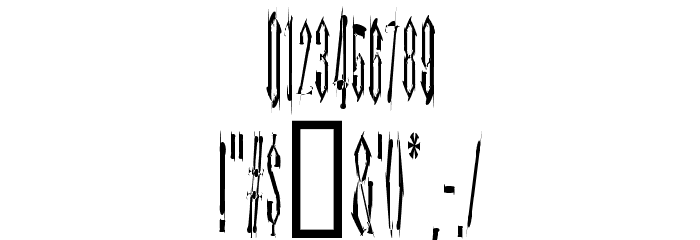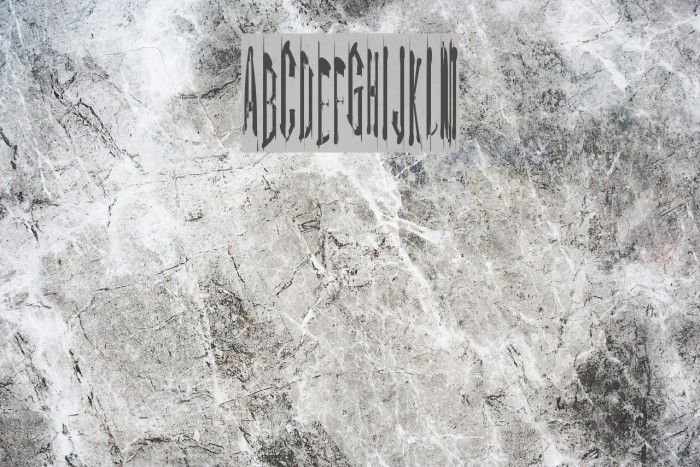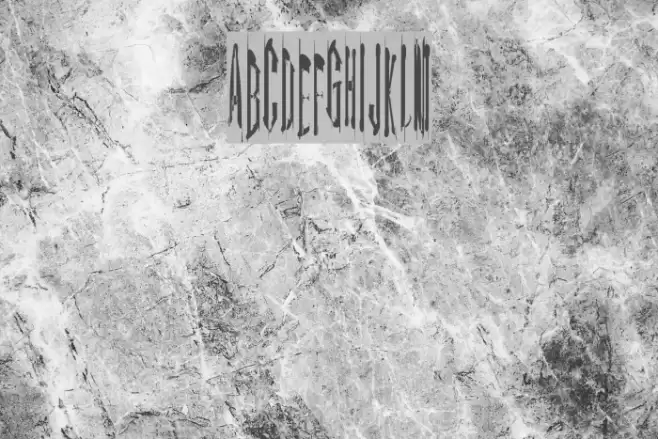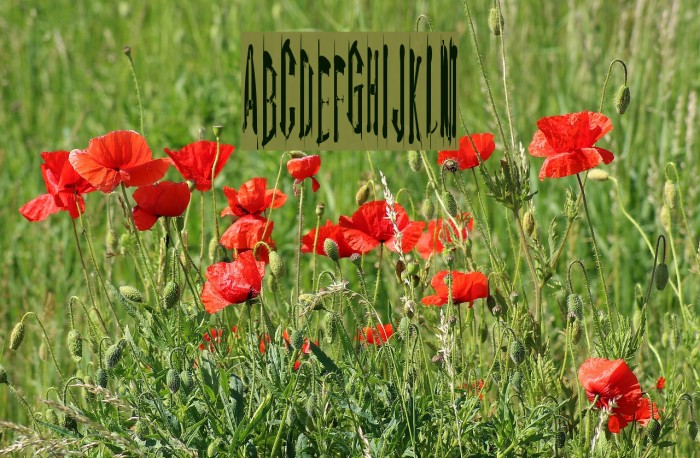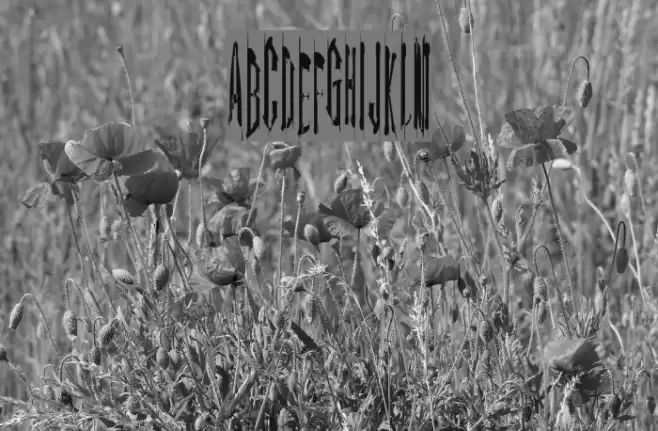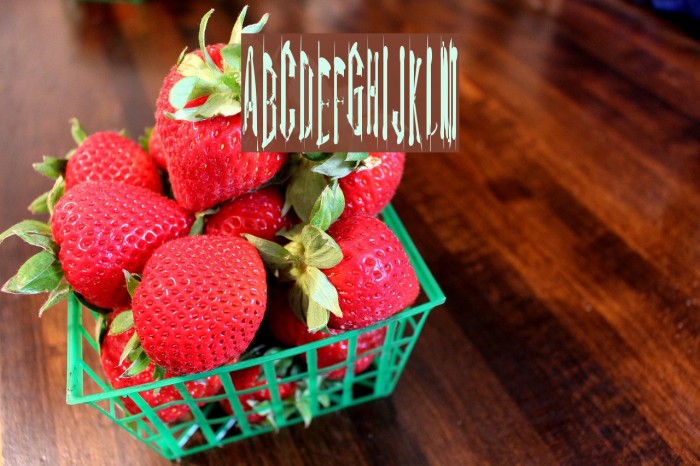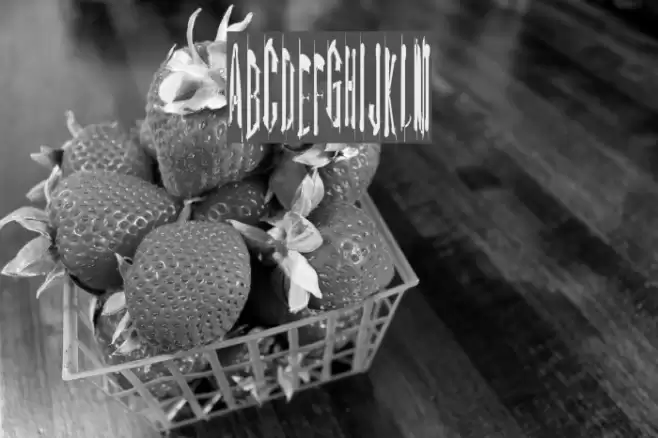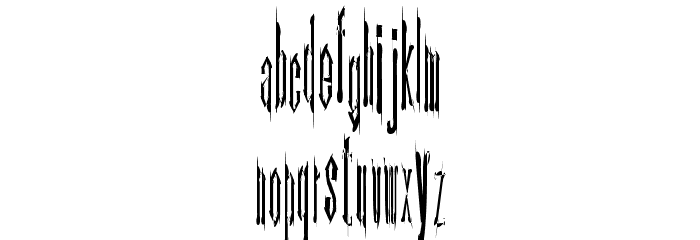
Kinderfeld Font
Kinderfeld Description
This font features a striking, gothic-inspired design with elongated, sharp serifs and a distressed appearance. The characters are tall and narrow, with a unique, jagged texture that gives them an edgy, dramatic feel. The uppercase letters are particularly bold, while the lowercase letters maintain the same sharpness but with slightly less height. Numbers and special characters follow the same stylistic cues, ensuring consistency across all glyphs. The overall aesthetic is reminiscent of vintage horror or dark fantasy themes, making it ideal for projects that require a bold, attention-grabbing typeface.
| Width | Condensed |
| Overall Style | Gothic, Vintage |
| Proposed Projects | Ideal for horror movie posters, gothic-themed event invitations, album covers, and Halloween decorations. |